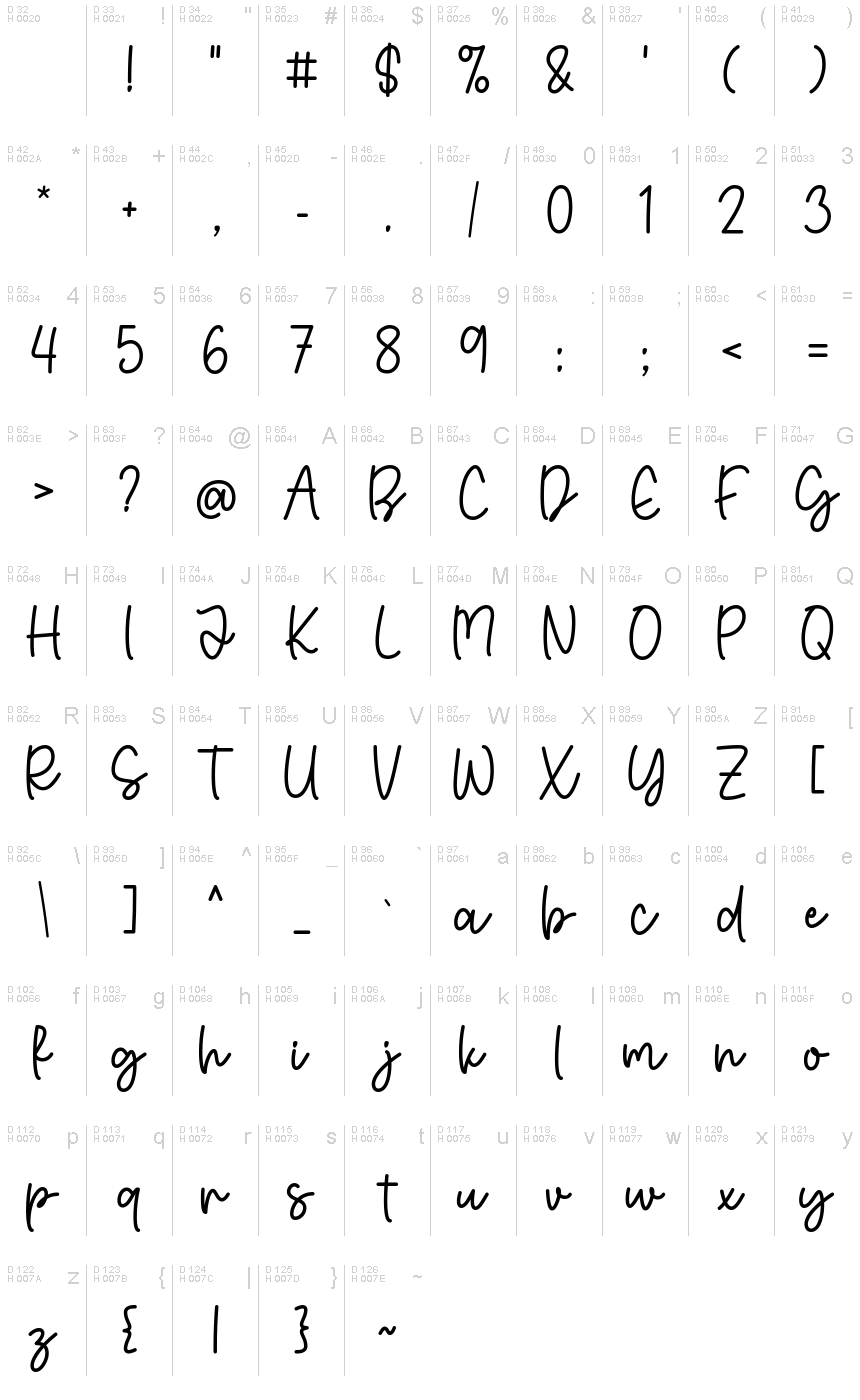
Belofytta
Belofytta font is a beautiful handwriting script font by Keithzo. A flowing natural design with neat brush strokes, connects the letters in a playful mood. This free font is an amazing tone setter in any project trying to communicate authenticity and candor.
Belofytta excells in branding projects, invitation card designs, product packaging, or just as overlay text over background images. As for professional business cards, this particular typeface can be used as part of corporate identity design which includes letterhead stationery materials among other items.